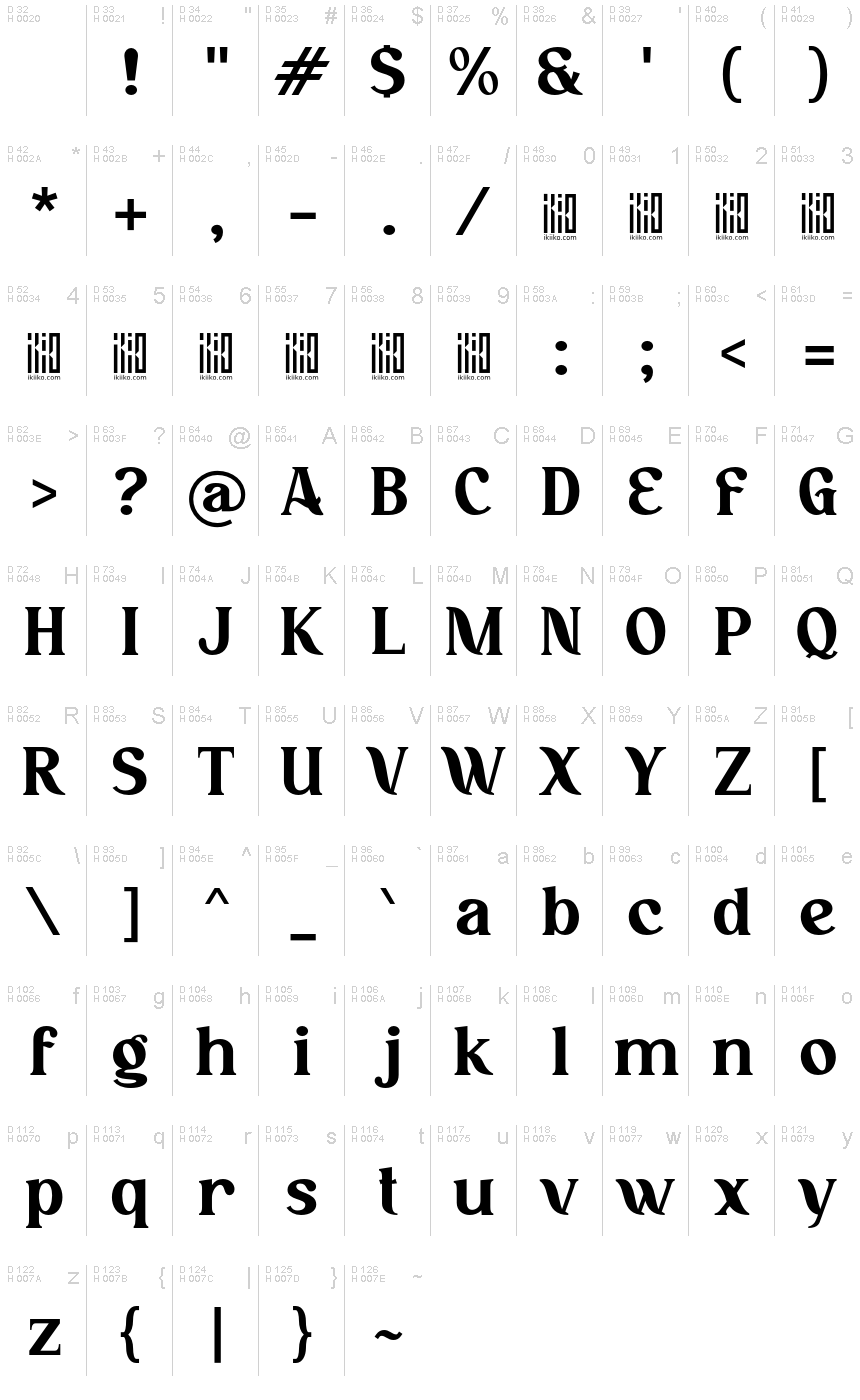
Vignettes ikiiko.com
Vignettes is a captivating serif font that exudes a sense of timeless sophistication. Crafted by the talented designers at Ikiiko Type, this bold typeface commands attention with its striking letterforms and commanding presence. The sharp serifs and sturdy, confident strokes create a visual impact that is both refined and impactful, making it a compelling choice for designers seeking a font that stands out.
This versatile font lends itself well to a variety of design applications, from editorial layouts and branding materials to packaging designs and display typography. Its strong personality and legibility make Vignettes an excellent selection for headers, titles, and other prominent text elements, allowing designers to create visually striking compositions that leave a lasting impression on the viewer.
Wahyu Eka Prasetya, Andhika Pradana